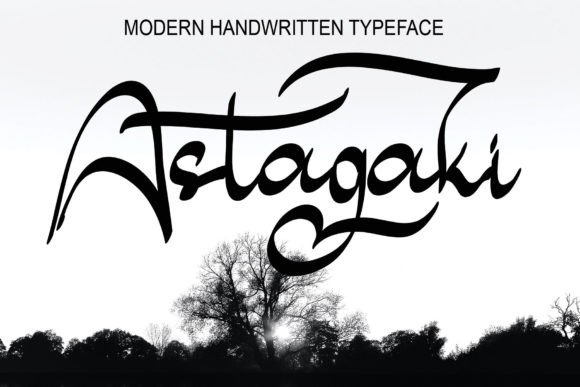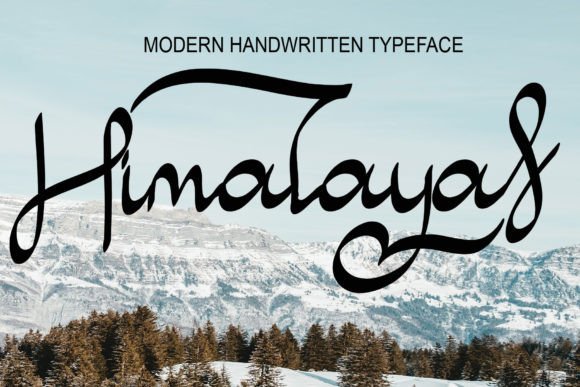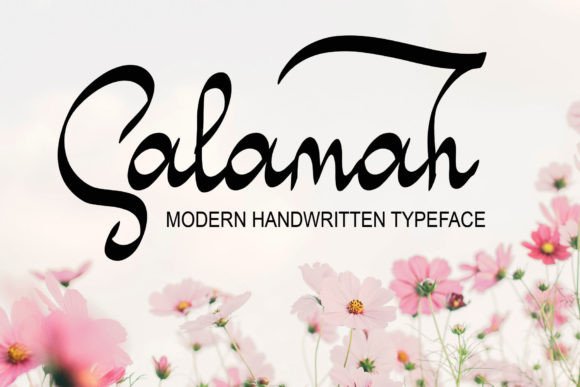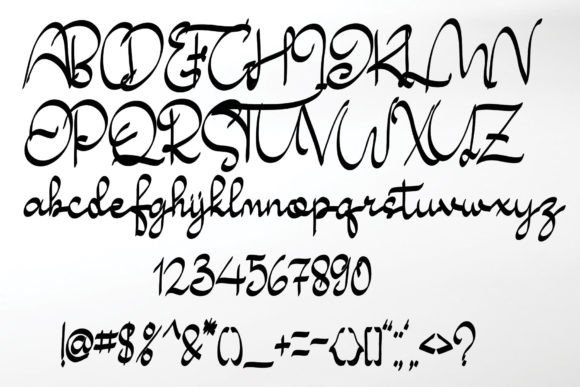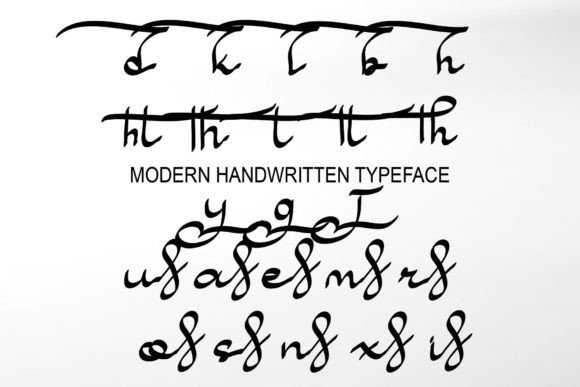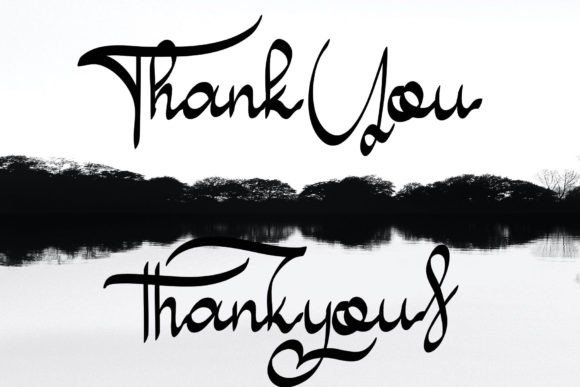
Guhytha Font: A Simple yet Stylish Handwritten Font for Designers
In the world of typography, fonts play a crucial role in conveying the tone and personality of a brand or design. For designers and crafters, finding the right font can make all the difference in creating visually appealing and effective designs. One such font that has gained popularity in recent times is the Guhytha Font. In this article, we’ll explore what makes Guhytha a great choice for various design projects.
What is Guhytha Font?
Guhytha is a font written by hand using a tablet, which gives it a personal and organic feel. This font is characterized by its simplicity, making it versatile and easy to read. Despite its straightforward design, Guhytha exudes a cool and stylish vibe that can elevate various design projects.
Uses of Guhytha Font
Guhytha font is suitable for a wide range of design applications, including:
- Websites: Guhytha can add a touch of warmth and personality to website designs, making them more engaging and user-friendly.
- Wedding Invitations: The font’s elegant and simple design makes it perfect for wedding invitations, creating a beautiful and memorable first impression.
- Business Cards: Guhytha’s stylish and professional look makes it an excellent choice for business cards, helping to establish a strong brand identity.
- Signatures: The font’s simplicity and readability make it ideal for signatures, adding a personal touch to documents and emails.
- Advertisements: Whether it’s product advertisements or other promotional materials, Guhytha font can help create eye-catching and effective designs.
Why Choose Guhytha Font?
So, what makes Guhytha a great choice for designers and crafters? Here are a few reasons:
- Uniqueness: Guhytha’s handwritten design gives it a unique and distinctive look that sets it apart from more traditional fonts.
- Readability: The font’s simplicity ensures that it’s easy to read, making it suitable for body text and headings.
- Versatility: Guhytha can be used in various design projects, from digital designs to print materials.
- Style: Despite its simplicity, Guhytha exudes a cool and stylish vibe that can elevate designs and make them more engaging.
Tips for Using Guhytha Font
To get the most out of Guhytha font, here are some tips:
- Pair it with other fonts: Combine Guhytha with other fonts to create visual interest and add depth to your designs.
- Experiment with colors: Try out different colors to find the perfect match for your design and brand.
- Use it consistently: Use Guhytha font consistently throughout your design project to create a cohesive look.
In conclusion, Guhytha font is a simple yet stylish handwritten font that can elevate various design projects. Its uniqueness, readability, versatility, and style make it an excellent choice for designers and crafters. Whether you’re creating a website, wedding invitation, business card, or advertisement, Guhytha font is definitely worth considering.
With its growing popularity, Guhytha font is sure to become a staple in the world of typography. So, if you’re looking for a font that can add a personal touch to your designs, look no further than Guhytha.